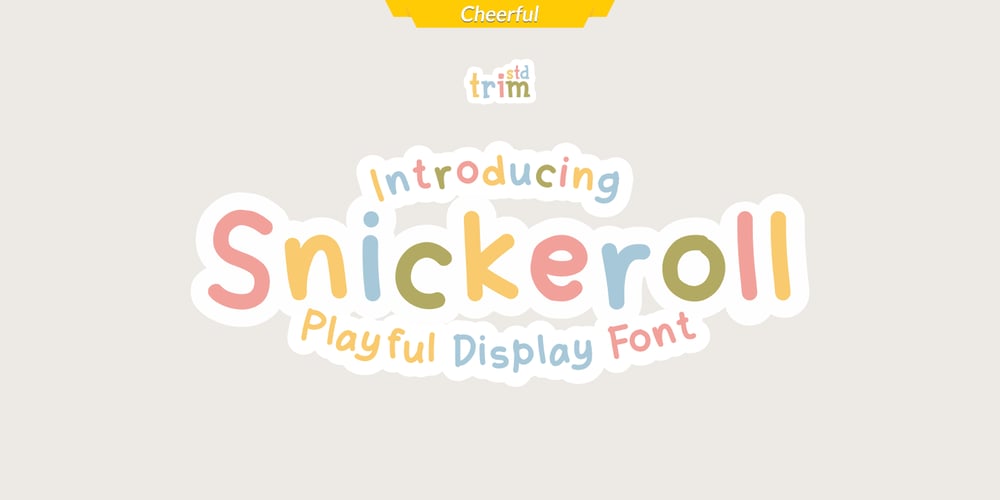
Snickeroll
Snickeroll font
Snickeroll Font Family was designed by Deri Kurnia and published by Trim Studio. Snickeroll contains 1 styles and family package options. “Snickeroll” is a delightful display font with glyphs that playfully ascend and descend from the baseline. Its charming and fun style adds a touch of whimsy to any design project. Perfect for conveying a cheerful and playful vibe.—Thank you for let us be your design partner, If you have any questions please don’t hesitate to drop me a message